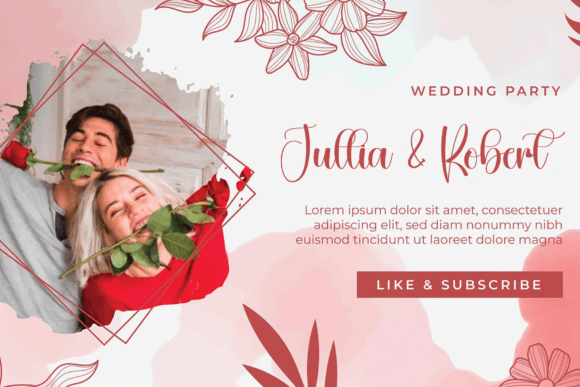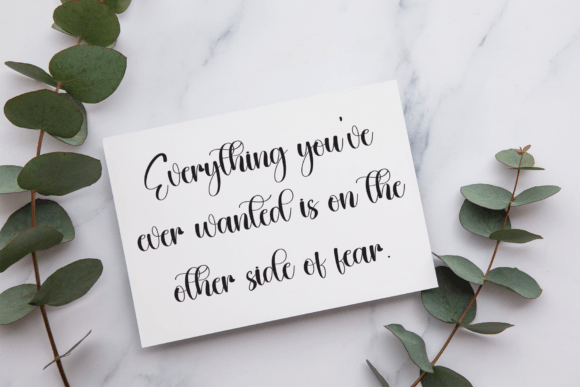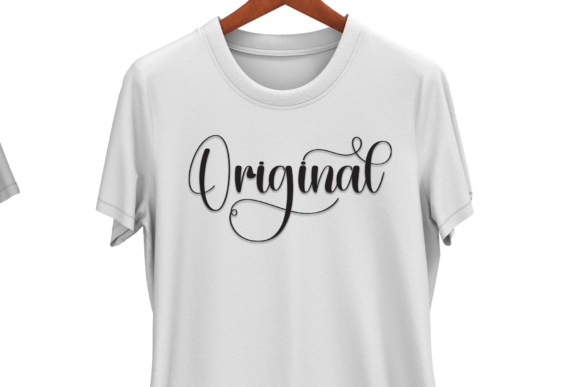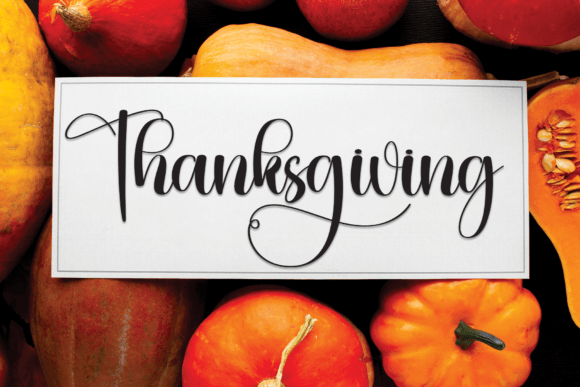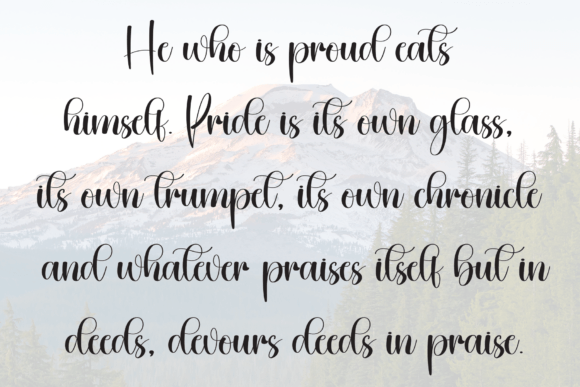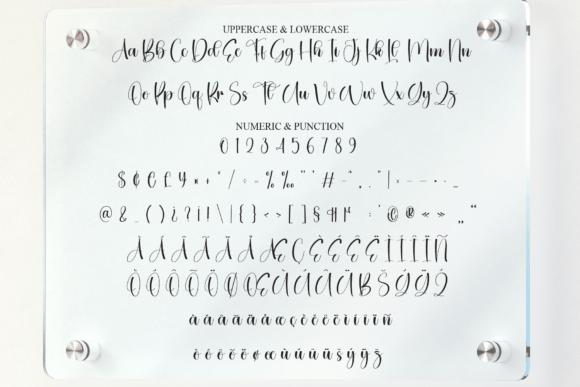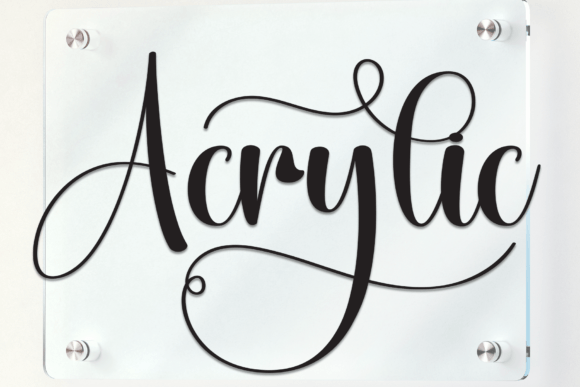
The Acrylic Font: Elevate Your Designs with Elegance and Playfulness
Have you ever been in the middle of a design project, and suddenly, you’re stuck on finding the perfect font? I recall a recent experience where I was working on a client’s wedding invitation, and I just couldn’t seem to find a font that captured the right balance of elegance and playfulness. That’s when I stumbled upon the Acrylic font, and it completely transformed my design. In this article, we’ll dive into the world of Acrylic, exploring its features, uses, and what makes it an excellent addition to your font collection.
A Personal Review of Acrylic Font
What I Love About Acrylic ✨
- ✅ Smooth, flowing lines that give it an elegant and sophisticated feel
- ✅ A playful touch that’s perfect for designs that need a bit of whimsy
- ✅ Highly versatile, making it suitable for logos, invitations, greeting cards, and more
- ✅ Easy to read, even in smaller sizes
While Acrylic is an exceptional font, there are a few minor quirks to be aware of:
- 🤔 Some users might find the font a bit too script-heavy for certain designs
- ⚠️ Limited availability of stylistic alternates, which might restrict creative freedom for some users
The Story Behind Acrylic Font
Acrylic was designed by a talented typographer who aimed to create a font that would capture the essence of elegance and playfulness. Inspired by the smooth lines of acrylic paint, the designer crafted a font that would be both sophisticated and approachable. The result is a font that’s perfect for a wide range of design projects, from wedding invitations to brand logos.
Q: What type of designs is Acrylic best suited for?
A: Acrylic is highly versatile and can be used for logos, invitations, greeting cards, and any project that needs a personal touch.
Q: Is Acrylic a difficult font to read?
A: No, Acrylic is designed to be easy to read, even in smaller sizes. Its smooth lines and flowing script make it perfect for body text and headings.